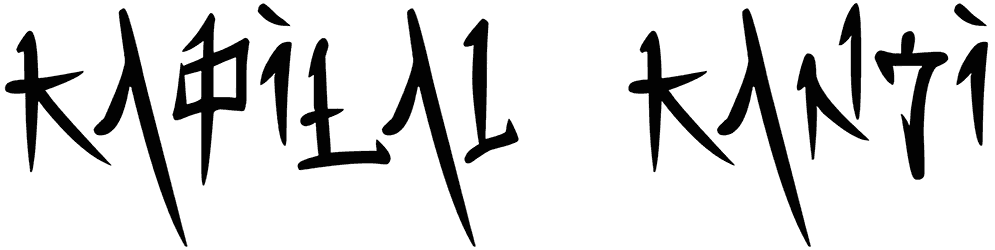
Kapital Kanji Font
Provide a distinct and mesmerizing visual for your Asian layout with this Japanese font and amaze your observers. Applying this ninja font will make your words illegible, but this feature is also its capturing aspect. There is no support for lowercase letters, but the Kapital Kanji font will be a cool pickup for a movie promotion layout, a hoodie design, or so forth.